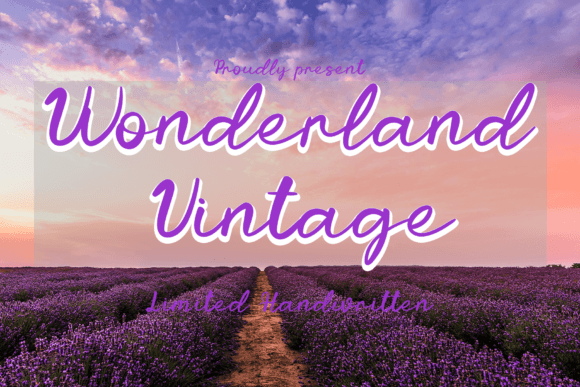
Journey into a world of whimsy and enchantment with Wonderland Vintage Font, a mesmerizing creation from pinkmeca that will ignite your imagination. This enchanting script font, reminiscent of a bygone era, captivates hearts with its delicate strokes and playful curves. Each letter dances across the page, evoking a sense of nostalgia and timeless beauty.
Immerse yourself in the charm of Wonderland Vintage Font, a font family that instantly adds a touch of elegance and sophistication to your creative projects. This font is a true masterpiece, meticulously crafted to embody the essence of vintage charm. Its intricate details and expressive characters bring a sense of authenticity and warmth to any design.
Unleash your creativity and embark on a visual adventure with Wonderland Vintage Font. Whether you're crafting wedding invitations, greeting cards, posters, or branding materials, this font will elevate your designs to new heights. Its versatility knows no bounds, allowing you to effortlessly create designs that resonate with your audience.
With its timeless appeal and universal charm, Wonderland Vintage Font is the perfect choice for designers seeking to make a lasting impression. Its ability to effortlessly blend vintage aesthetics with modern sensibilities makes it a favorite among those seeking a font that stands out from the crowd.
Step into the world of Wonderland Vintage Font and let your imagination soar. Experience the magic of a bygone era as you create designs that capture the hearts of your audience. This font is more than just a collection of letters; it's an invitation to embark on a creative journey where dreams come to life.